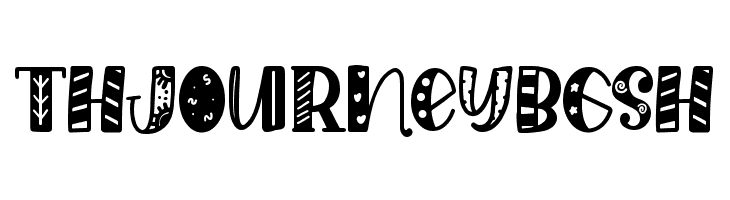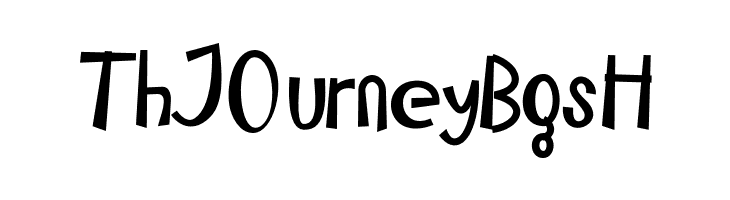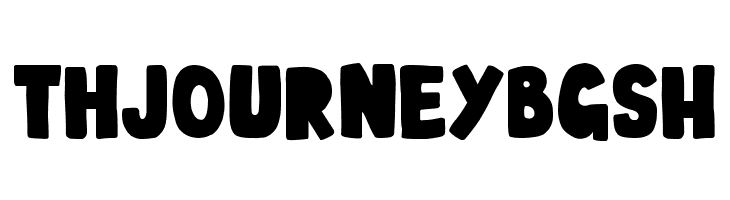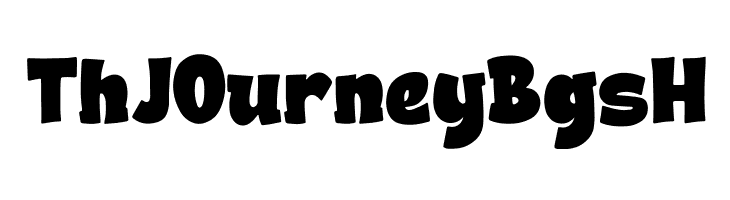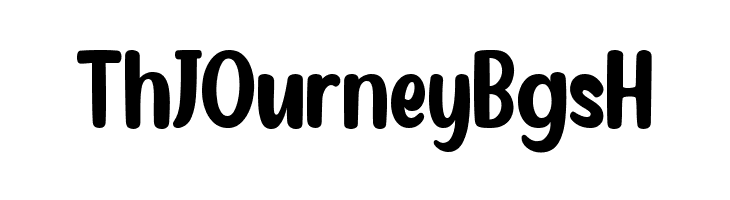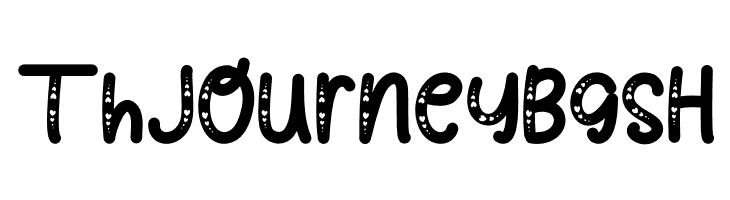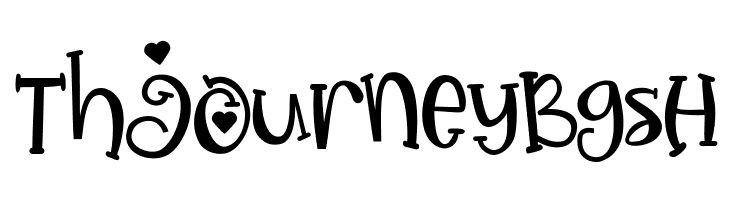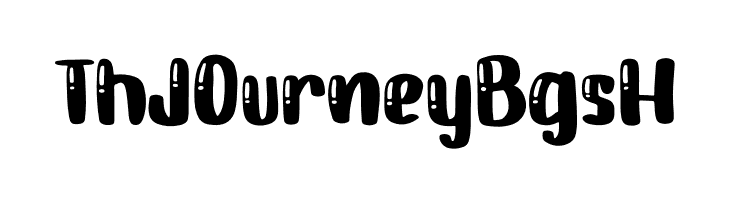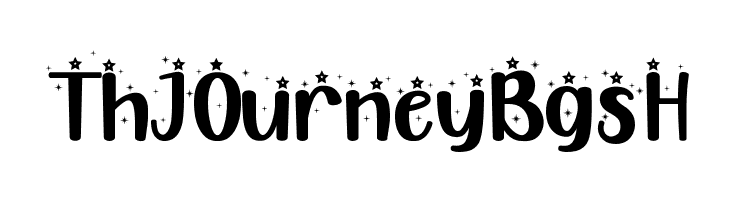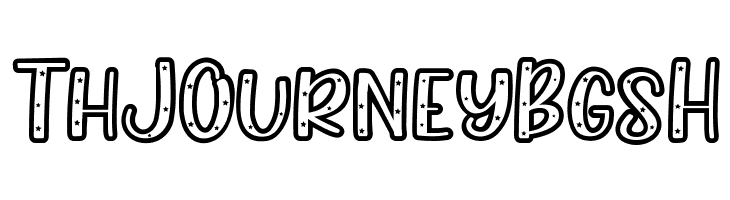
A playful, decorative font with whimsical patterns and bold, rounded characters.
A playful and whimsical font with bold, curvy strokes and a festive appearance.
A bold, playful font with rounded, hand-drawn characters.
A playful, bold font with rounded, chunky characters ideal for children's projects.
A playful, bold font with rounded edges and a friendly style.
A playful, dotted decorative font with bold, rounded characters.
A playful and whimsical font with rounded, expressive letterforms and charming heart motifs.
A playful, bubbly font with bold, rounded characters and whimsical cutouts.
A playful, star-adorned font with bold, rounded characters.
A playful, star-decorated font with bold, rounded letters.